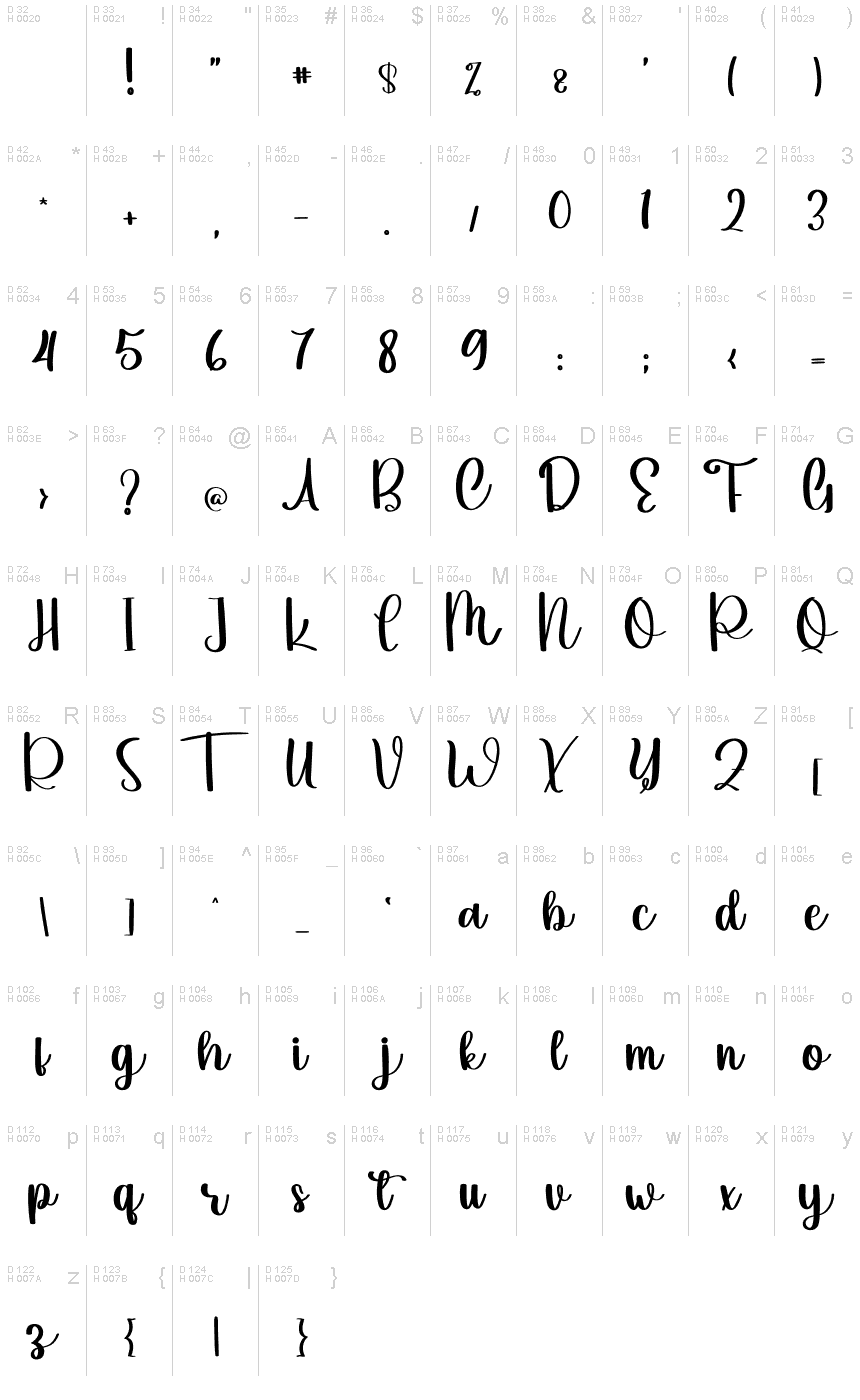
Selena
Selena, a light casual calligraphy font designed by FreshtypeINK, is perfect for creating unique and stylish designs. It's ideal for projects like invitations, logos, branding and product packaging.